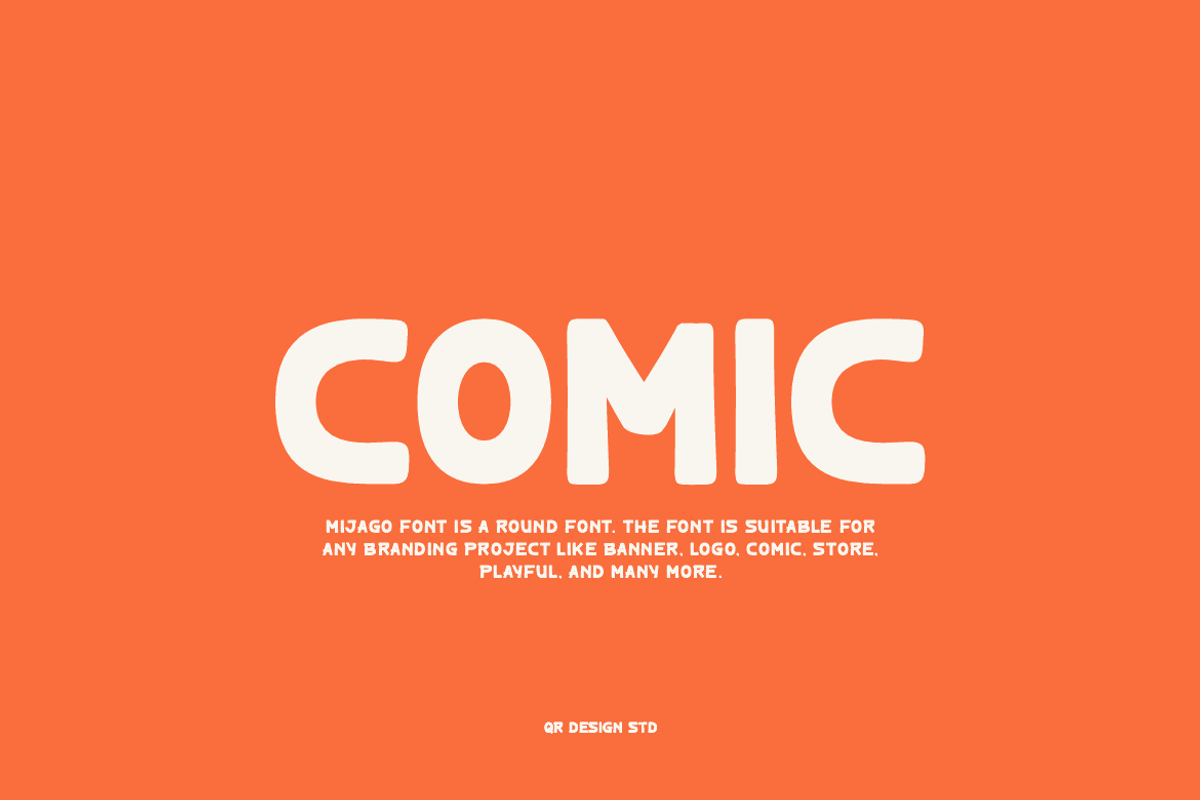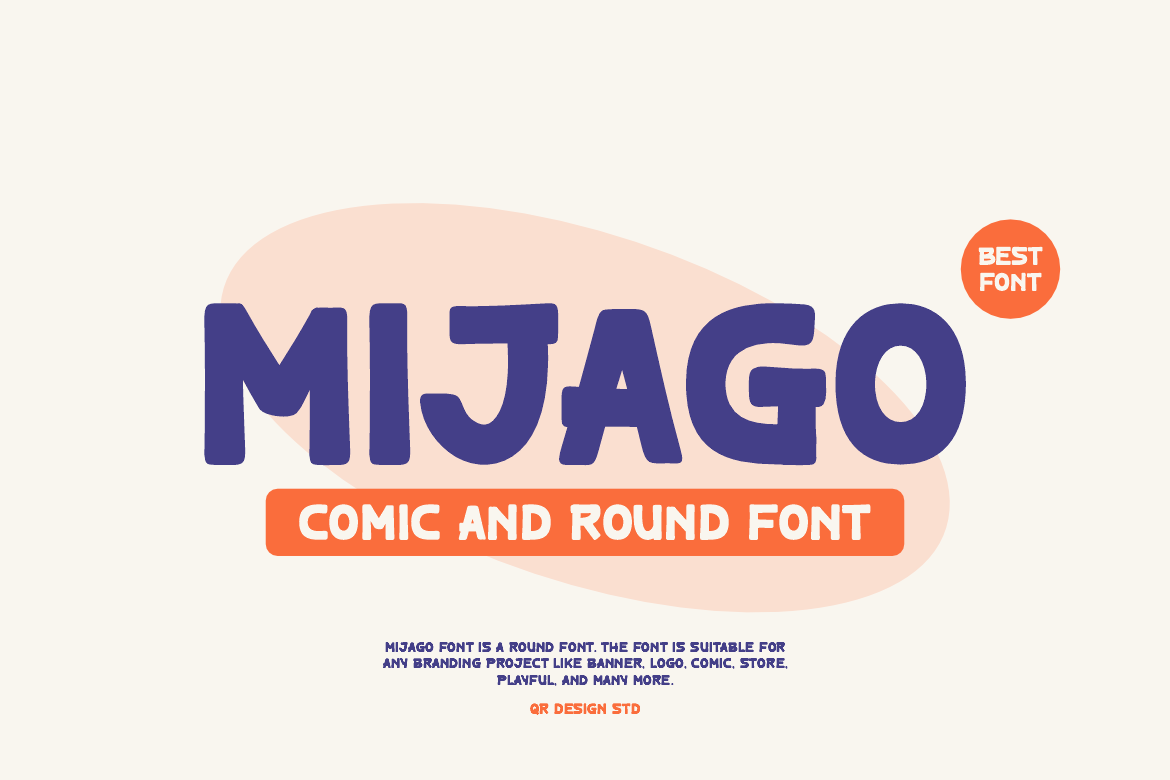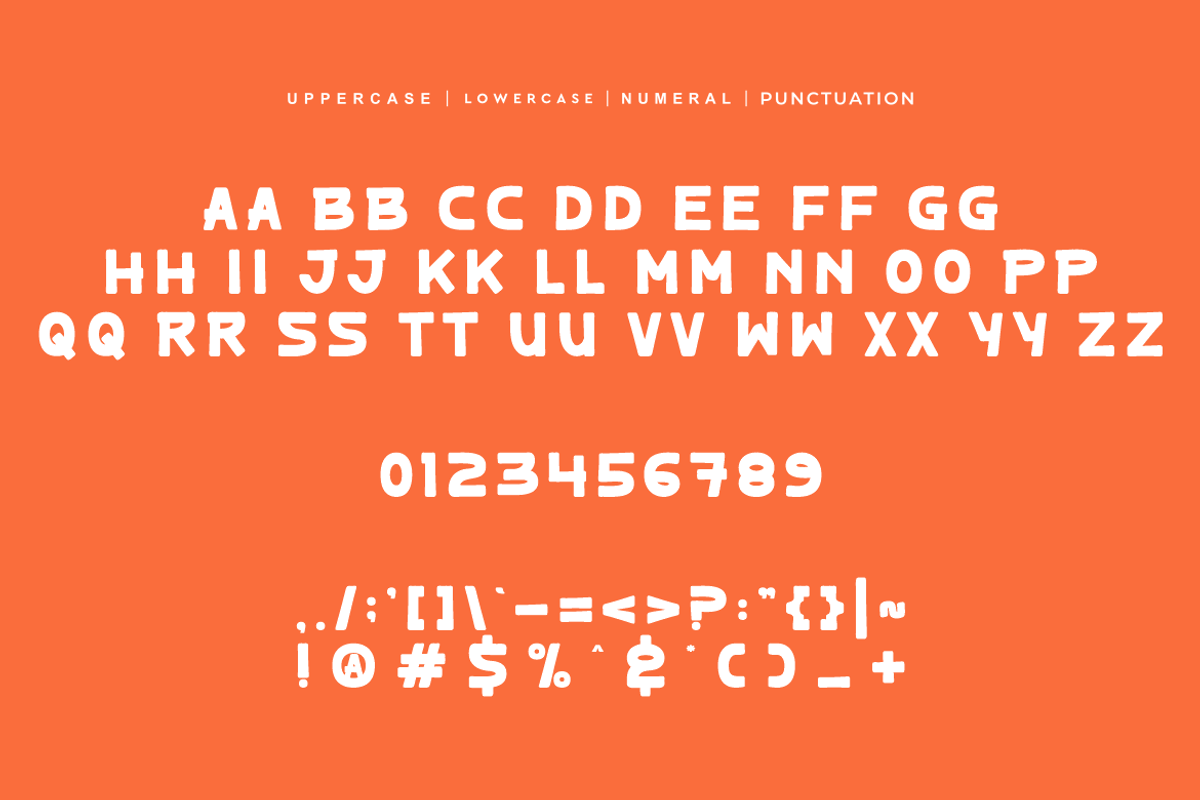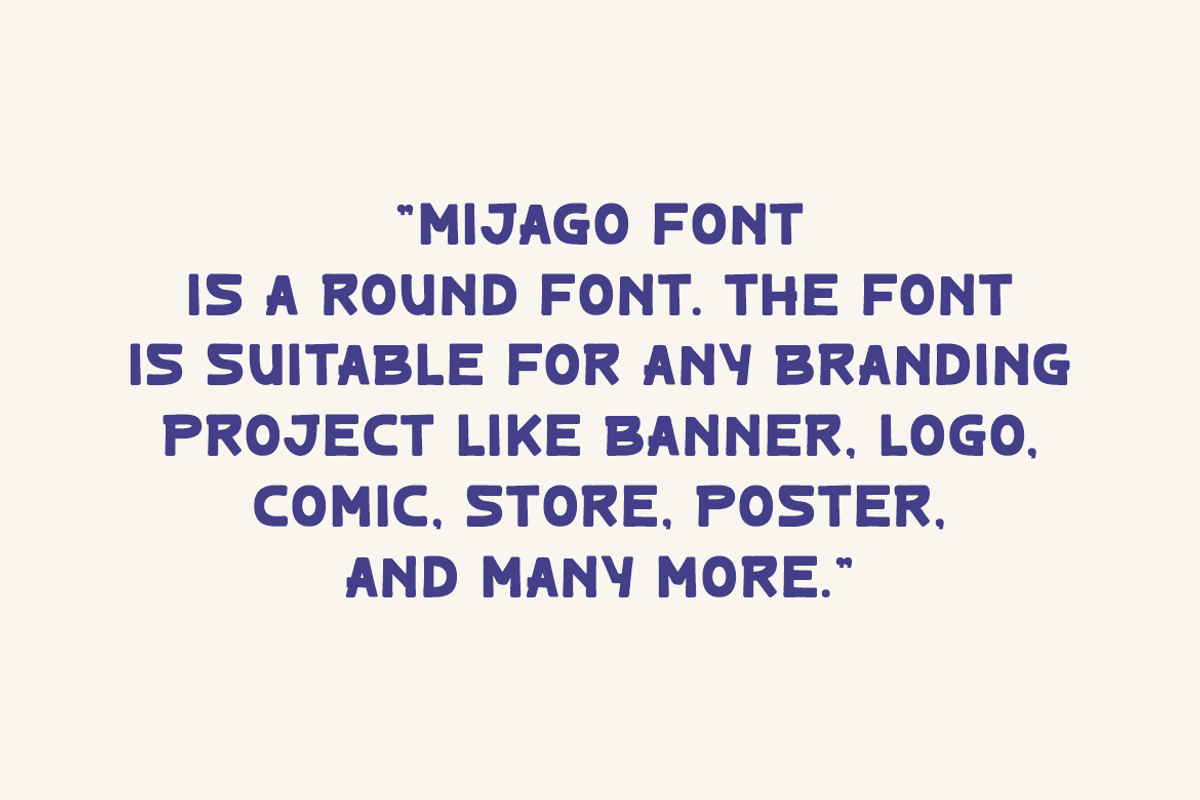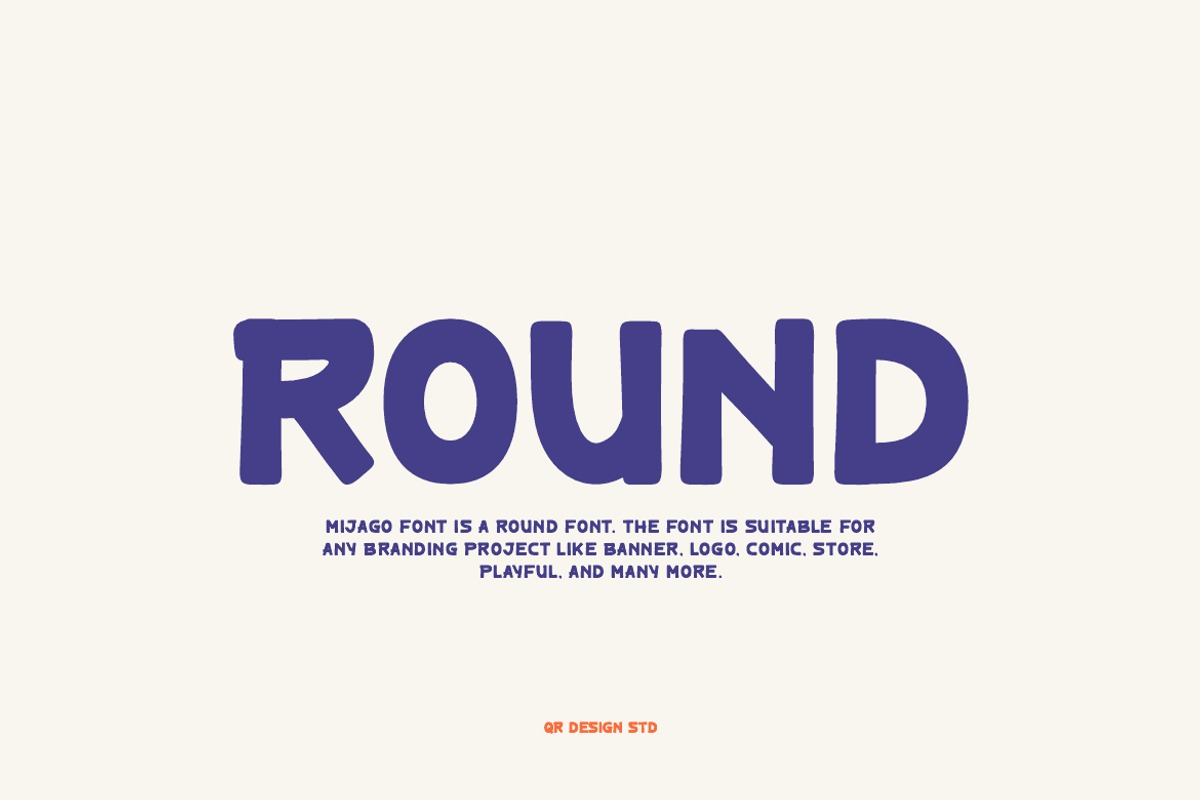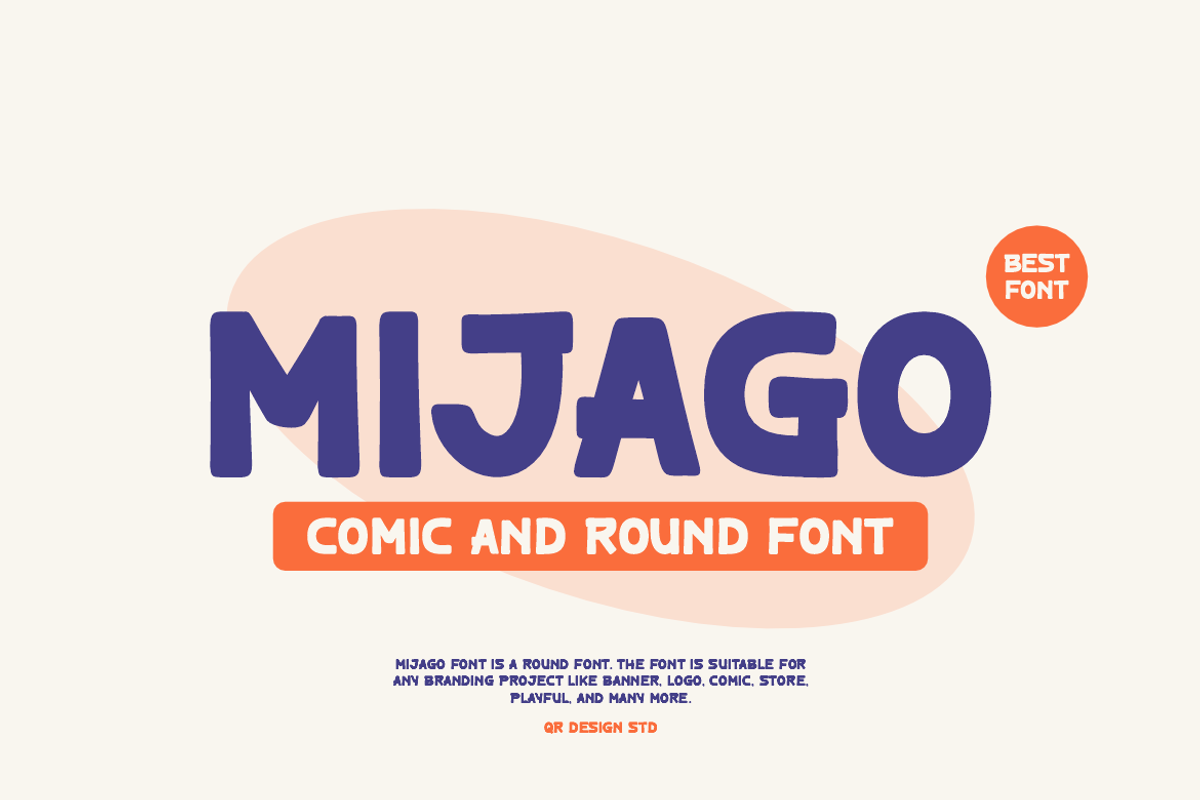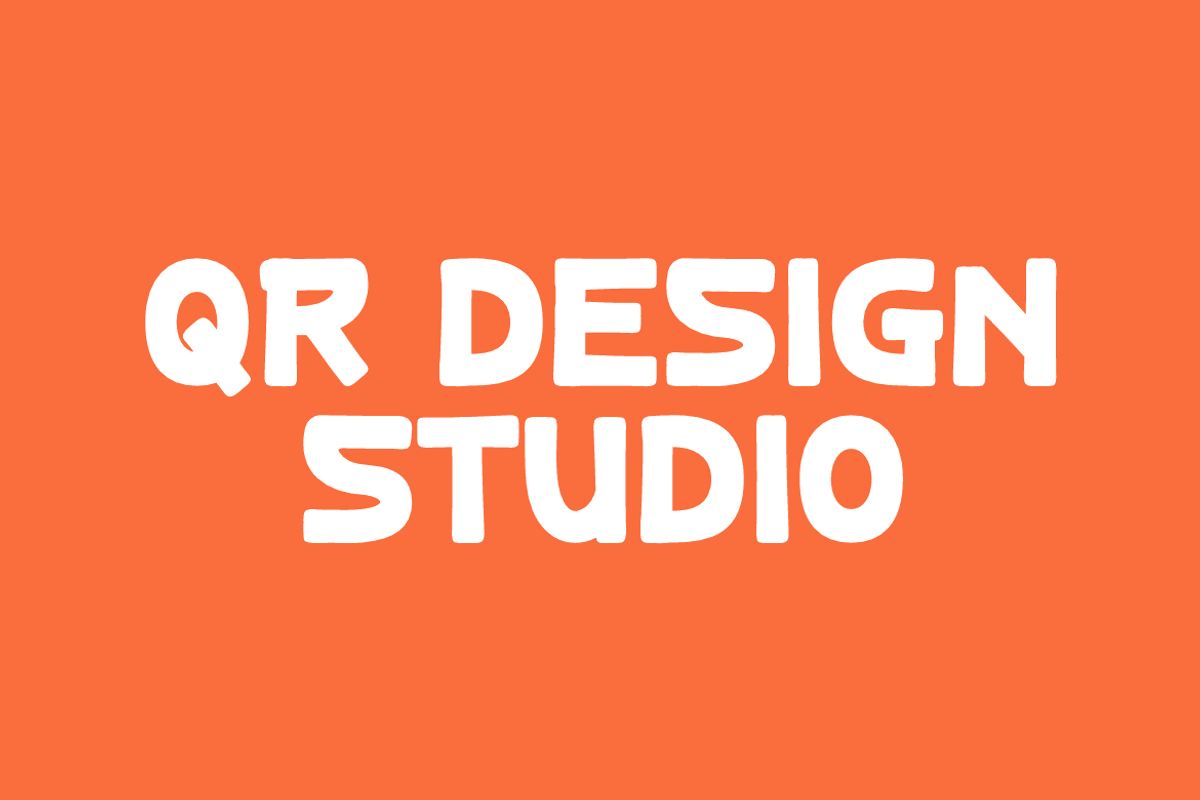
Mijago - Comic & Round Font
Mijago Font is a round and authentic display font. The font is suitable for any branding project like poster, logo, comic, and many more. Outstanding in a wide range of contexts.